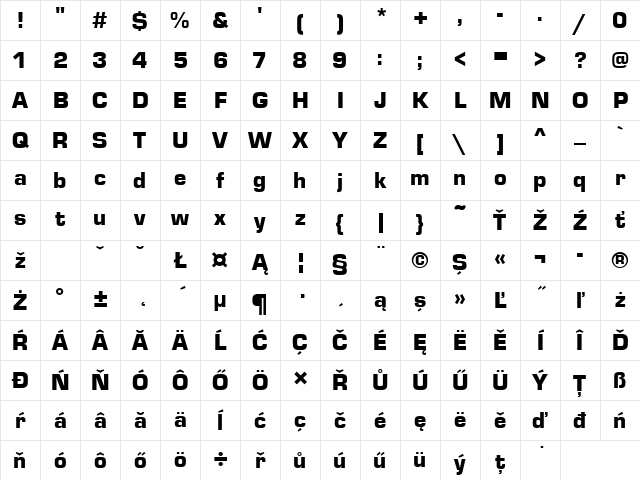
EurostileTEEBla Regular Free Font
EurostileTEEBla Regular
Design Context for EurostileTEEBla
EurostileTEEBla is a composed and adaptable typeface that performs quietly and consistently across a wide range of design contexts.